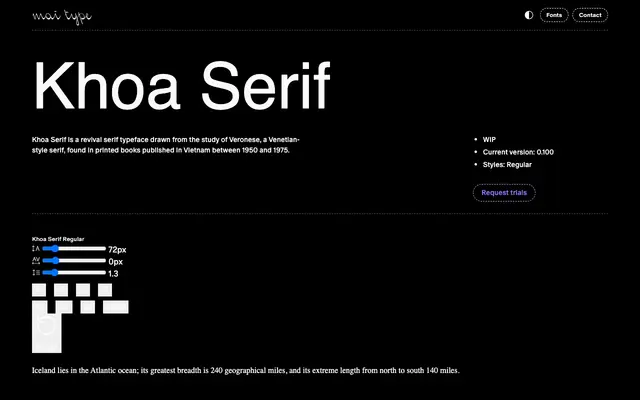
Khoa Serif
A Venetian serif revival drawn from Veronese as it appeared in Vietnamese printed books between 1950 and 1975.
Still a work in progress at version 0.100, this typeface takes its cues from Veronese, a Venetian-style serif found in printed books published in Vietnam during the mid-twentieth century. The single Regular style already supports Latin and Vietnamese scripts, rooting it firmly in a specific regional and historical typographic tradition. Its scope is narrow for now, but the premise of a Vietnamese-inflected Venetian revival is a distinctive one.
Khoa Serif is explicitly described as a Venetian-style serif revival, drawn from Veronese, placing it firmly within the humanist oldstyle/Venetian tradition.